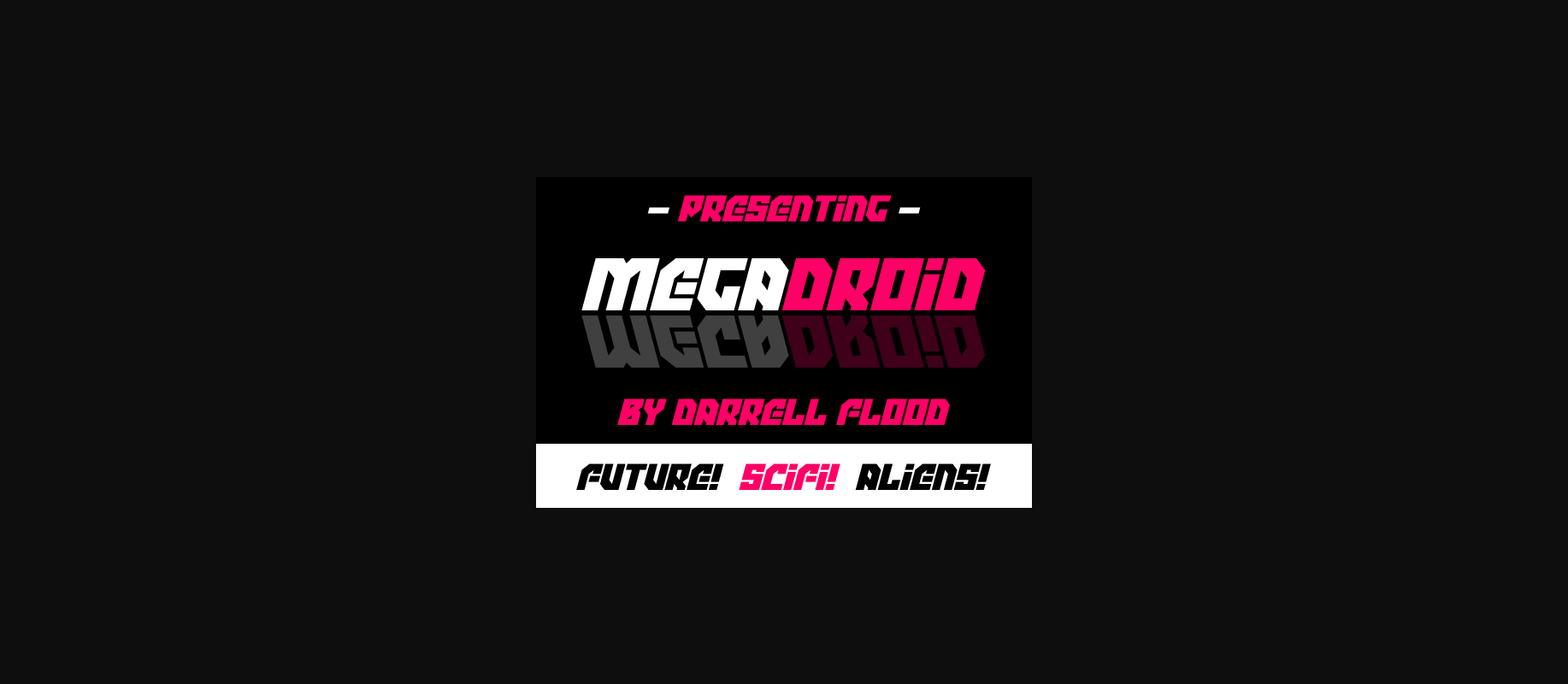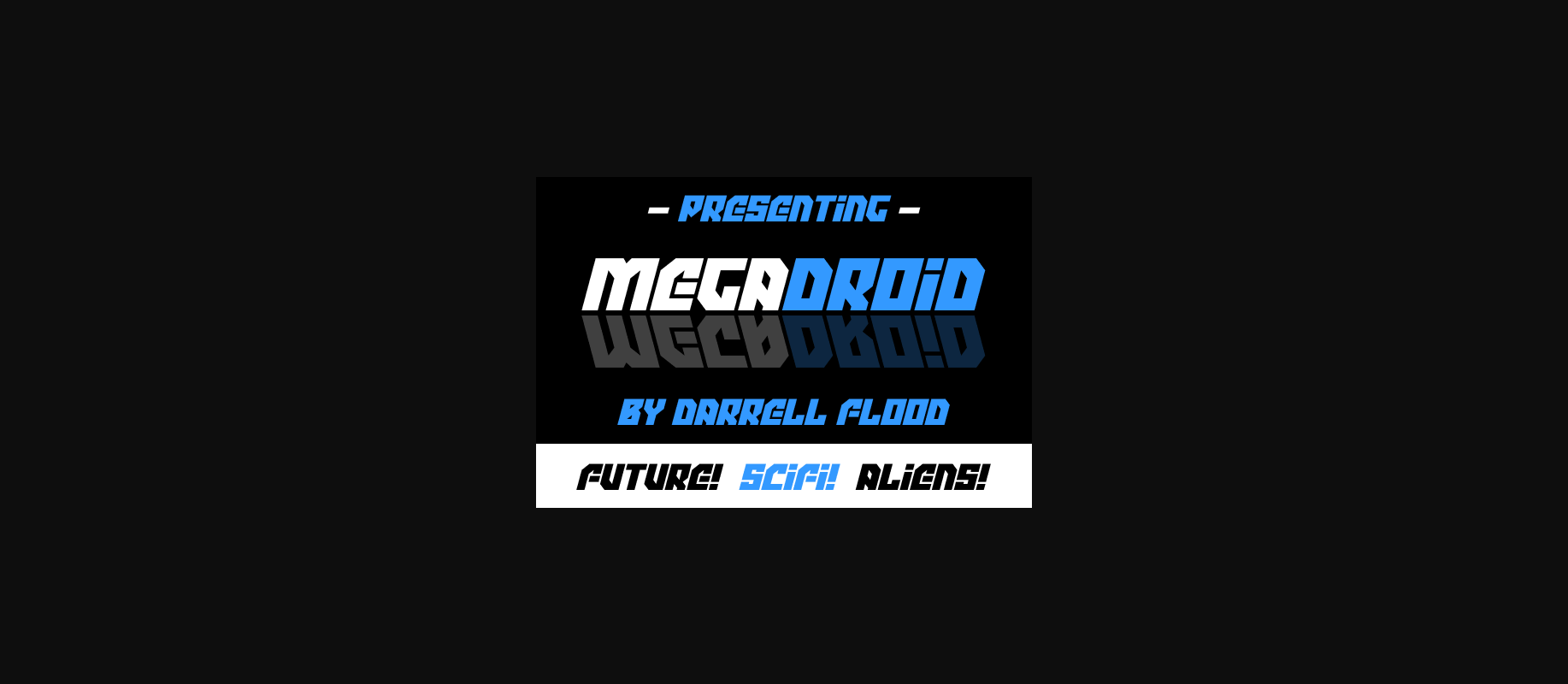
HomeDecorative FontsMegadroid Font Decorative Fonts Megadroid Font FacebookXPinterestWhatsApp 1 of 4 ... Megadroid Font Poster 2... Megadroid Font Poster 3... Megadroid Font Poster 4... About Megadroid Font A futuristic scifi font in an energetic, angular style. Diagonal cuts add visual flair. Perfect for alien invasions, robot takeovers and mad rave parties! (Alternates for i and j can be found in uppercase.) DOWNLOAD NOW People also explored Luminousity Font Happy Tulip Font Shiny Beach Font Wedding Flowers Font Forever Brush Script Font Delight Font Cherry Bird Font Verathrine Font Earlie Font 310 0 TagsMegadroid Font Previous articleHello Sunflower FontNext articleWinter Easter Font LEAVE A REPLY Cancel reply Comment: Please enter your comment! Name:* Please enter your name here Email:* You have entered an incorrect email address! Please enter your email address here Website: Save my name, email, and website in this browser for the next time I comment. Personal Use Free Nouradilla Script Free Version Personal Use Free Read more about this font Roustel Personal Use Free Read more about this font Samureix Personal Use Free Read more about this font Monogram Calligraphy Personal Use Free Read more about this font BLOG Using Fonts in Digital Marketing: Tips to Strengthen Your Brand Identity In the realm of digital marketing, every visual element plays a crucial role in shaping a brand's identity, and fonts are no exception. The... The 10 Best Handwriting Fonts to Add Personality to Your Designs How to Cut Any Font on Cricut: Convert a Font to SVG (Free) Transform Your Website: Elevate Your Typography with 7 Best Web Font Generators